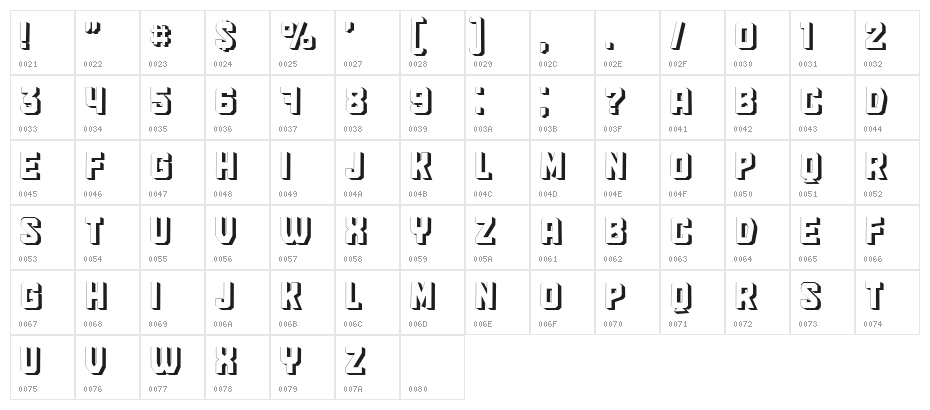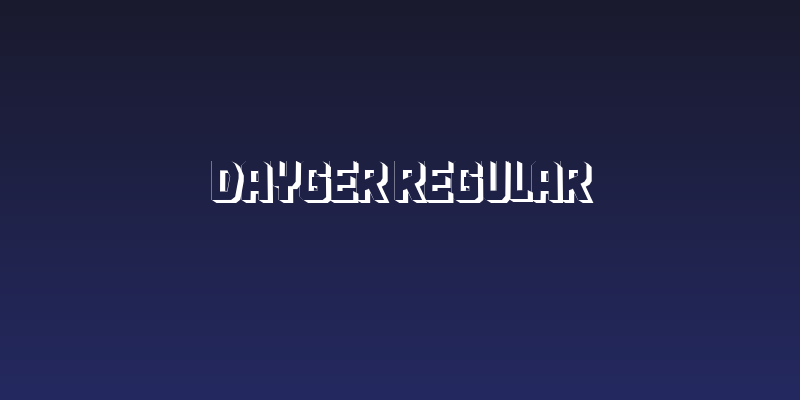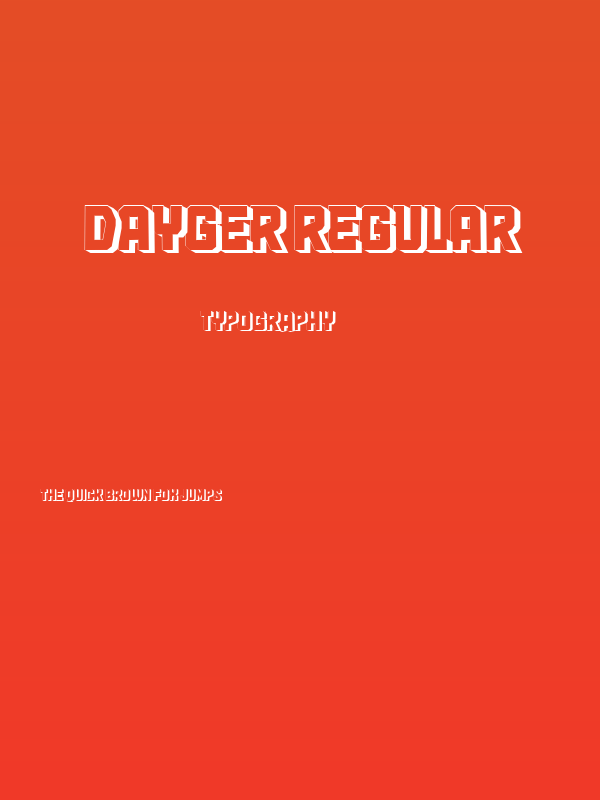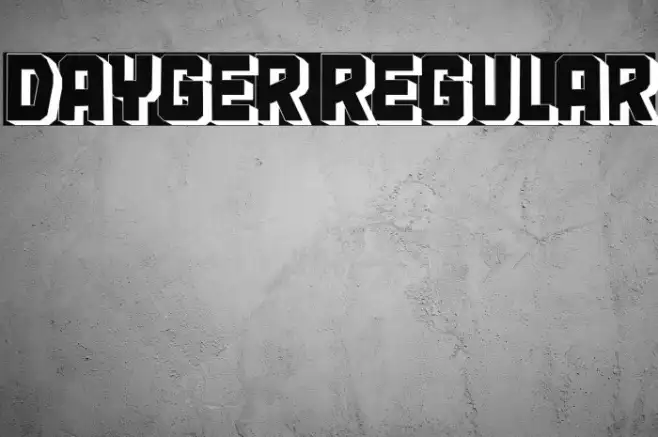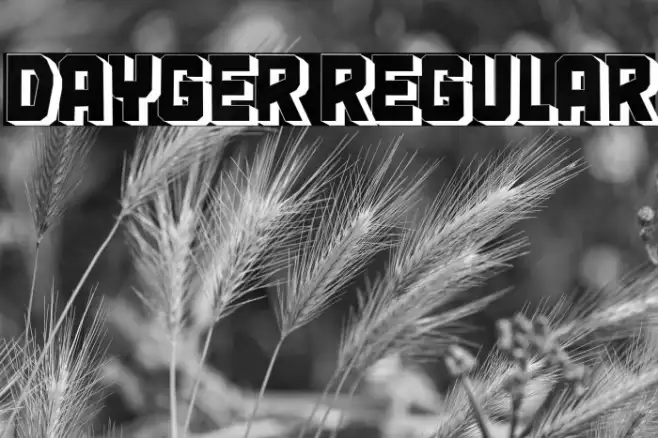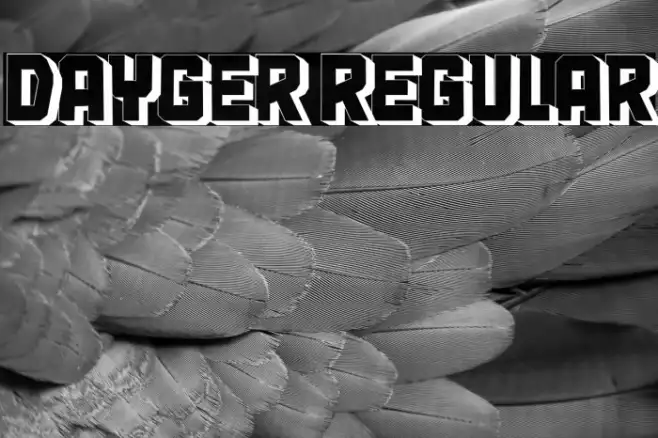
Dayger Regular Font
Dayger Regular Description
This font features a bold, three-dimensional style with a strong presence. The characters are blocky and angular, with a shadow effect that gives them depth and a sense of solidity. The uppercase letters are uniform in height, while the numerals and special characters maintain the same bold, impactful design. The font's geometric shapes and sharp edges make it stand out, creating a dynamic and modern appearance. It is well-suited for attention-grabbing headlines or logos that require a strong visual impact.
| Proposed Projects | Ideal for use in posters, logos, video game graphics, or any project needing a bold, impactful typeface. |